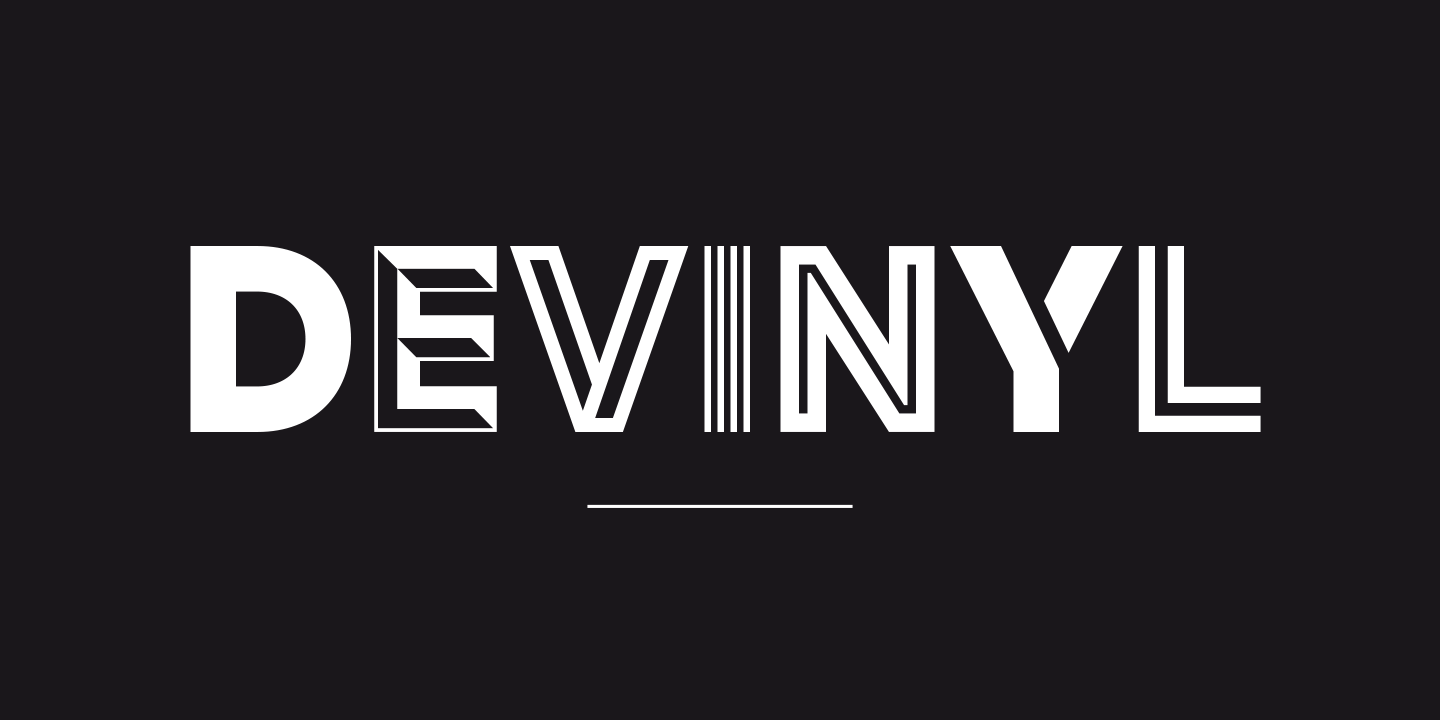
Devinyl Font is perfect for vinyl record store branding, retro music promotions, vintage audio equipment packaging, nostalgic DJ event graphics, classic turntable displays, analog music marketing, record label designs, vintage radio show materials, music nostalgia campaigns, and authentic vinyl culture communications. Its vinyl character makes it ideal for projects requiring analog authenticity and retro music appeal that celebrates vinyl records and vintage audio culture.
What makes Devinyl Font exciting is its authentic recreation of vinyl record aesthetics through letterforms that capture the warm, analog character and nostalgic charm of classic vinyl culture. The font features groove-inspired curves with vintage proportions that evoke the tactile experience of handling vinyl records while maintaining excellent readability for music communications. Its vinyl character transforms ordinary text into expressions of analog authenticity that resonate with vinyl enthusiasts and music lovers who appreciate the superior sound quality and ritual of vinyl listening.
The Devinyl Font family includes Regular, Bold, Light, Groove, Analog, Vintage, and Classic variations. Each style preserves the font's vinyl essence while offering different levels of retro intensity and analog weight for creating authentic music graphics. The comprehensive character set includes vinyl symbols, music ornaments, analog decorations, and nostalgic glyphs essential for genuine vinyl culture and music nostalgia typography projects.
Record collectors and vintage music brands consistently choose Devinyl Font Free Download for projects demanding authentic vinyl typography solutions. The font's analog character instantly establishes music credibility while ensuring clear communication across vinyl culture marketing channels. Its versatility spans from subtle vinyl touches to bold statements that celebrate the enduring appeal of analog sound and the ritualistic beauty of vinyl record collecting and listening experiences.
Whether you're developing music brand identities, creating vinyl marketing materials, or designing analog communications, Devinyl Font provides the perfect combination of vinyl authenticity and contemporary functionality. The font's groove-crafted letterforms ensure genuine analog character while maintaining excellent performance across various music applications and vintage audio business communications.
The musical heritage of Devinyl Font makes it exceptional for creating nostalgic connections with audiences who appreciate vinyl culture and analog music experiences. Its vinyl precision and retro appeal work seamlessly across traditional record materials and modern digital music platforms. The font performs authentically in both large-scale music displays and intimate vinyl communications.
Spin into nostalgia with Devinyl Font and discover how authentic vinyl typography can enhance your music projects with genuine analog appeal and retro sophistication. This remarkable typeface combines vinyl tradition with contemporary functionality, making it indispensable for music professionals celebrating the timeless beauty of analog sound and the enduring cultural significance of vinyl records.